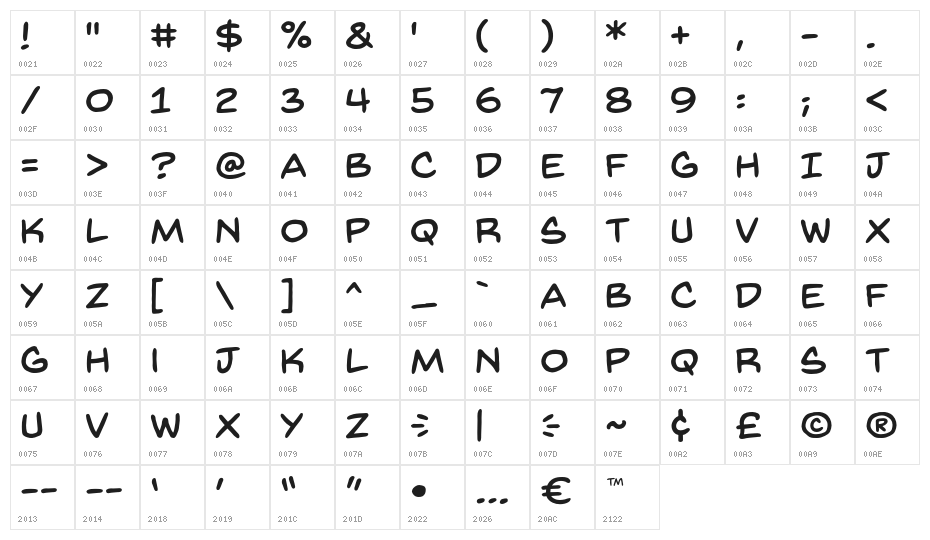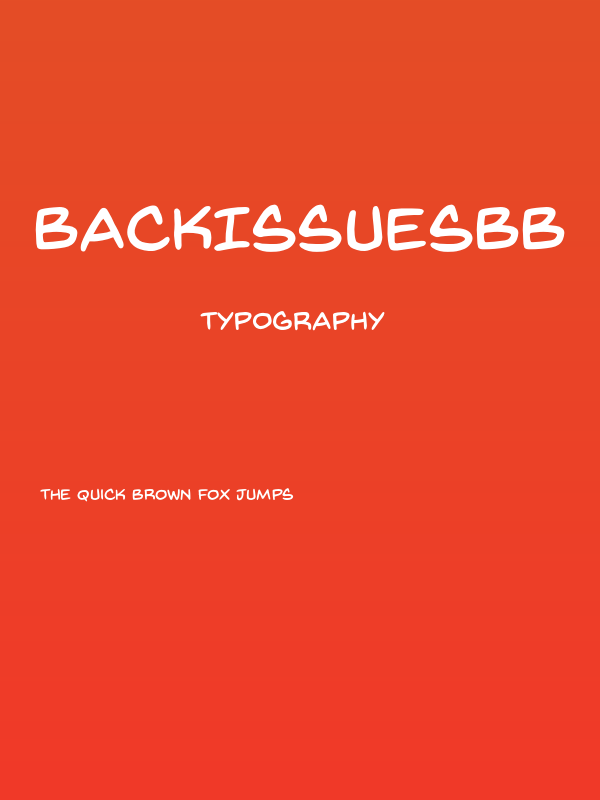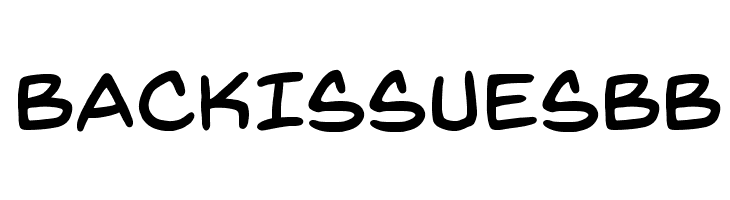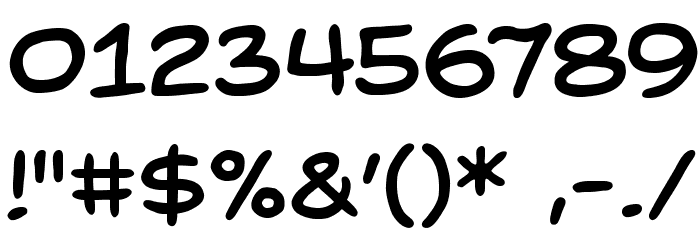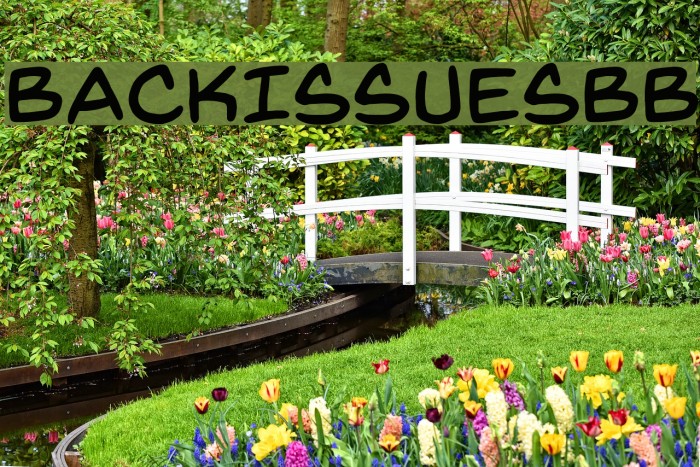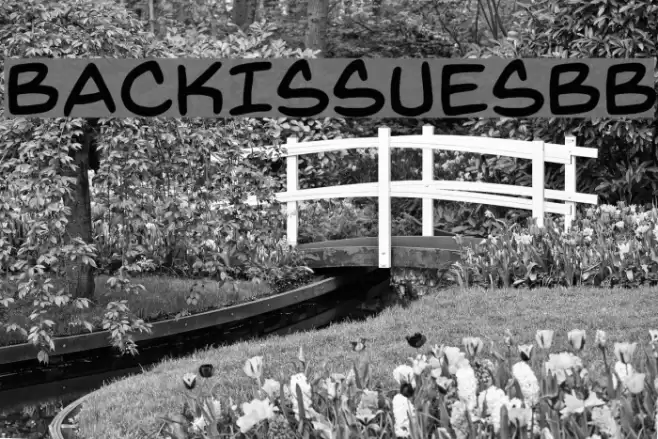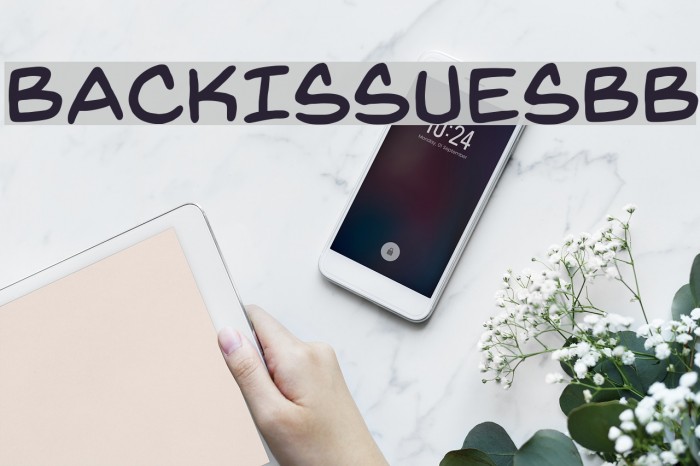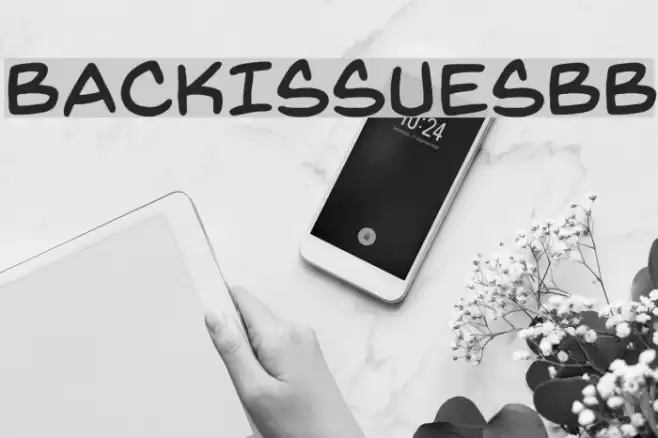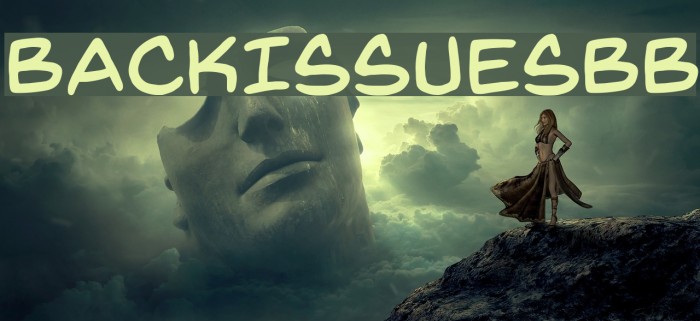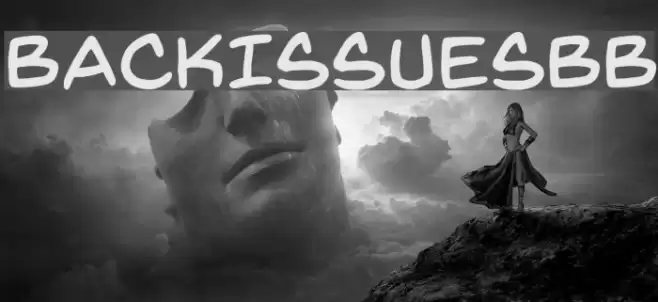
BackIssuesBB Font
BackIssuesBB Description
This playful and energetic font features a handwritten style with bold, rounded strokes that give it a friendly and approachable appearance. The characters are slightly slanted, adding a dynamic feel to the text. The uppercase and lowercase letters maintain a consistent style, with smooth curves and a casual flair. The numbers and special characters are designed to match the overall aesthetic, ensuring a cohesive look across all text elements. This font is perfect for projects that require a personal touch or a sense of fun and creativity.
| Overall Style | Playful |
| Use Case | Headlines, Logos, Informal Text |
| Proposed Projects | Ideal for comic books, children's books, playful branding, and informal invitations. |